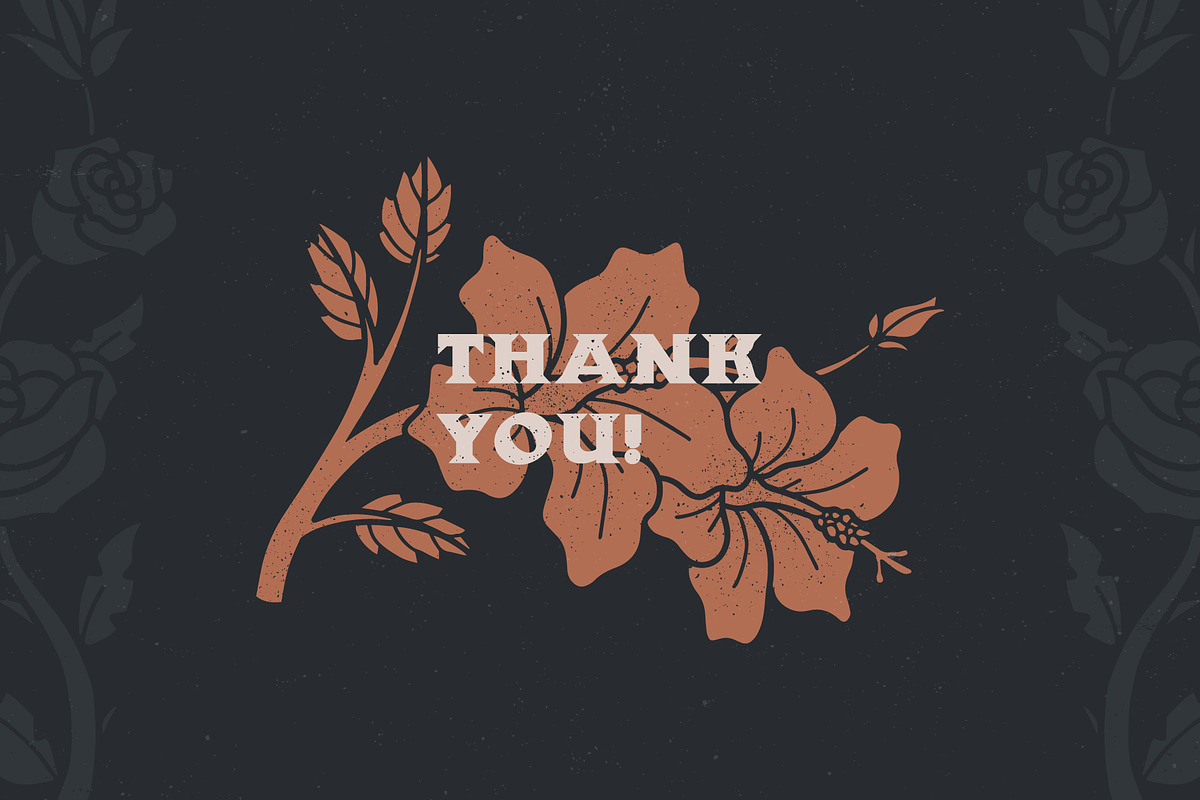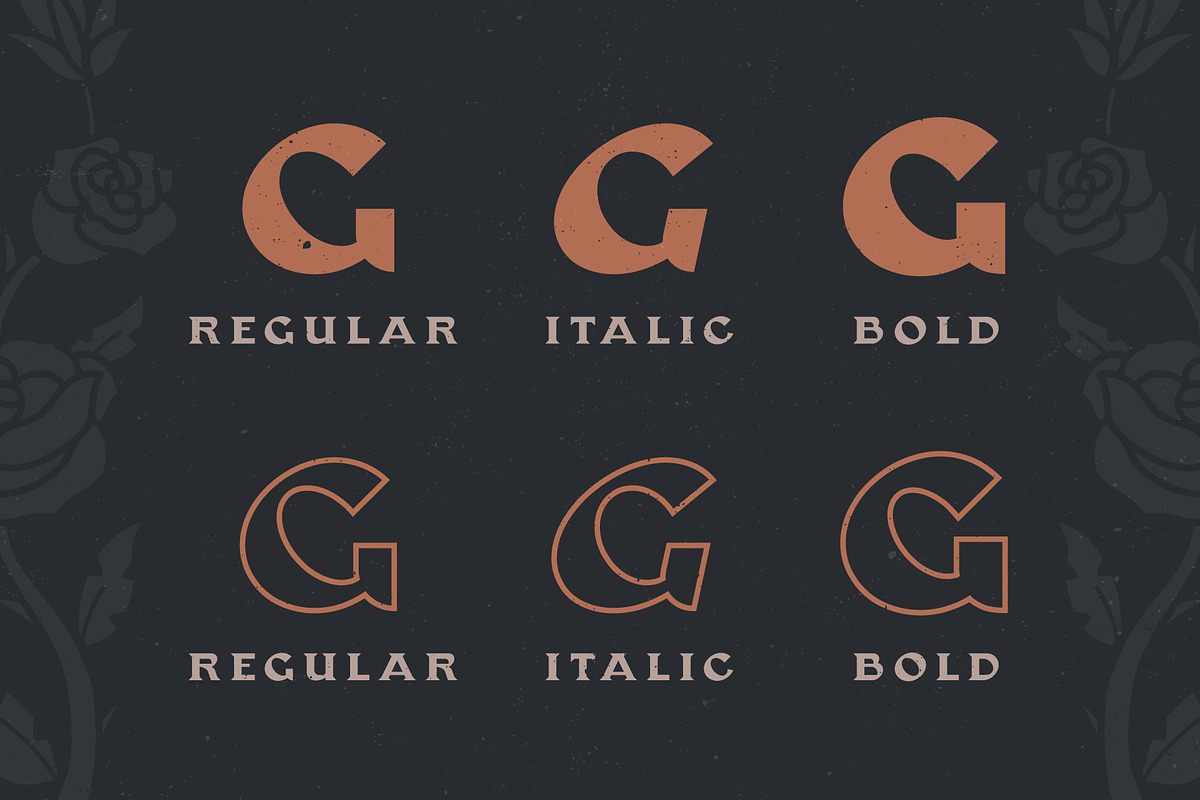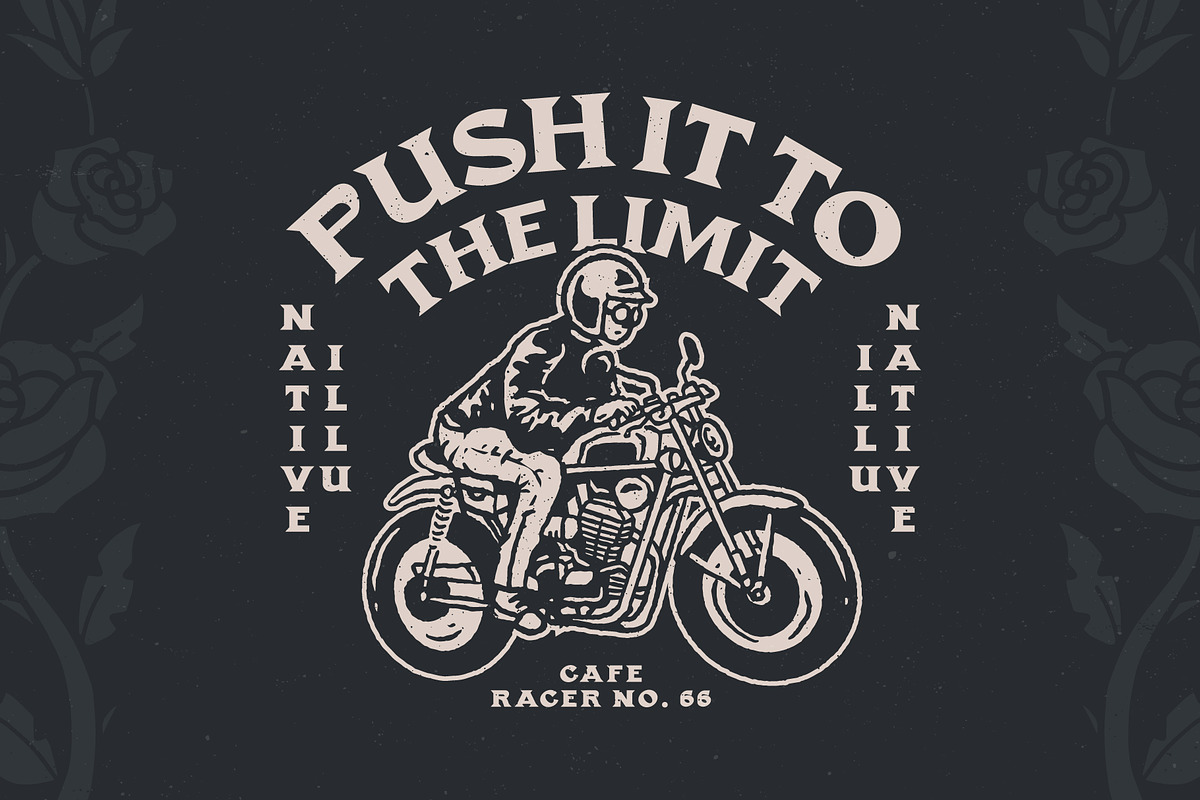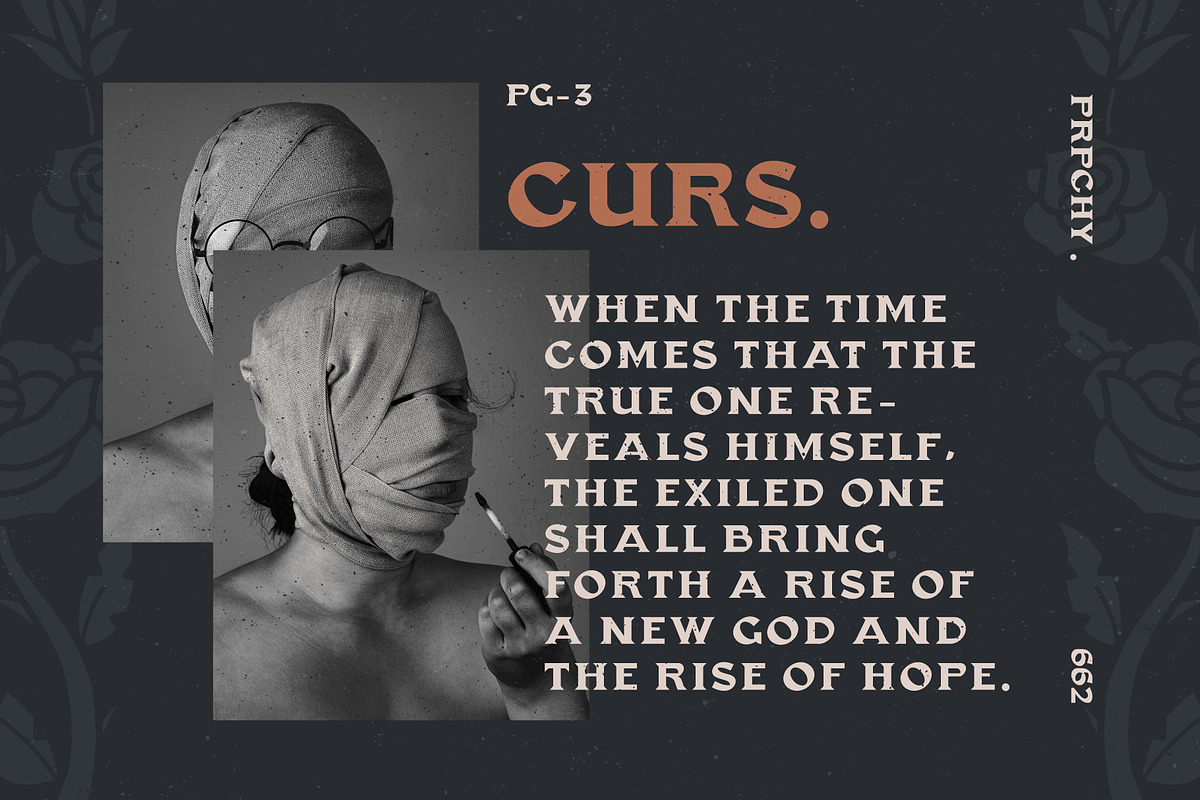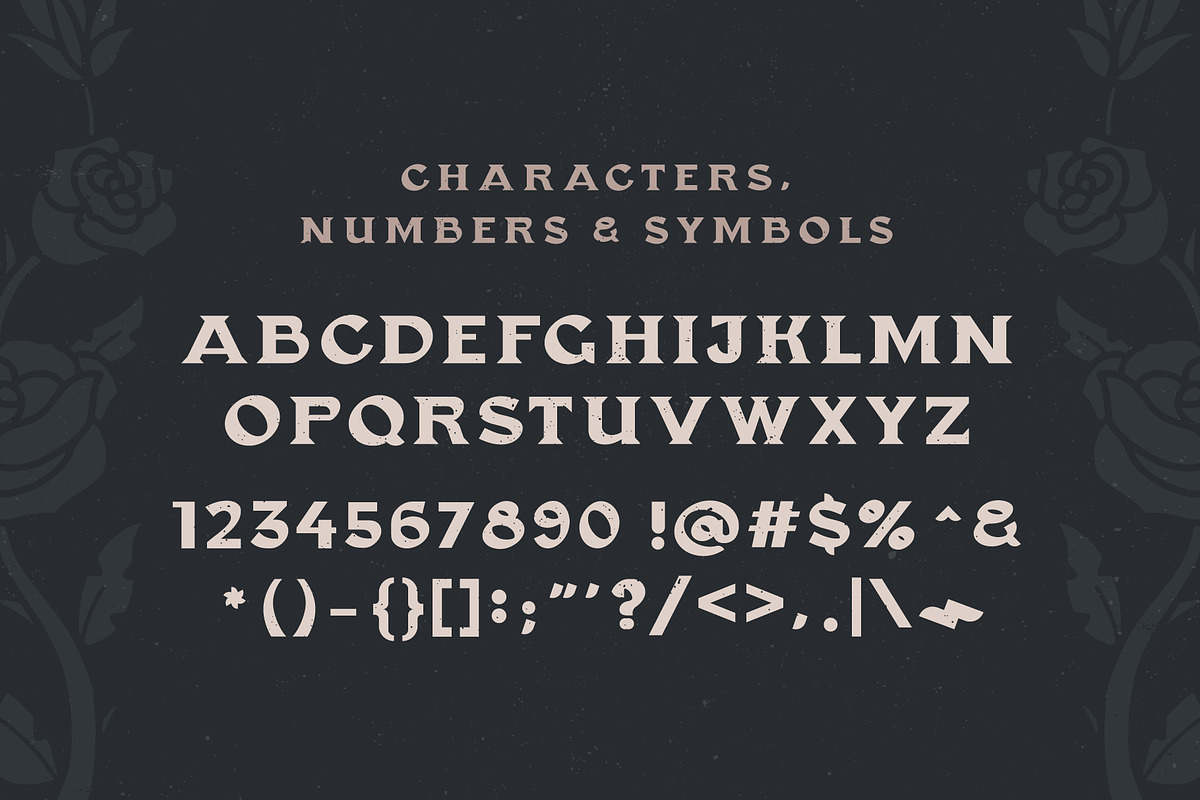
Gasbro Family Font
Gasbro is a serif font with an elegant & youthful style. This font is suitable for raising the level of your creative projects such as logos, illustrations, t-shirts, merch, apparel, magazine, and many other design projects. Just for you!
Gasbro Font Family including Regular, Italic, and Bold.